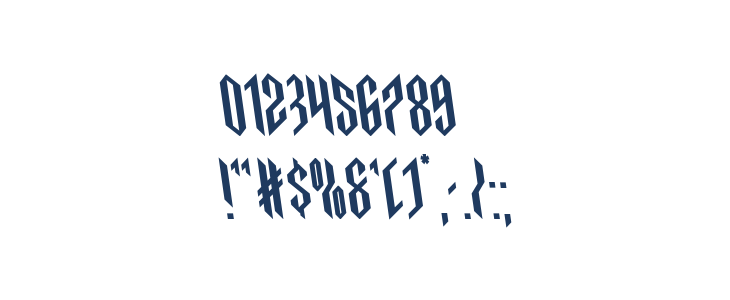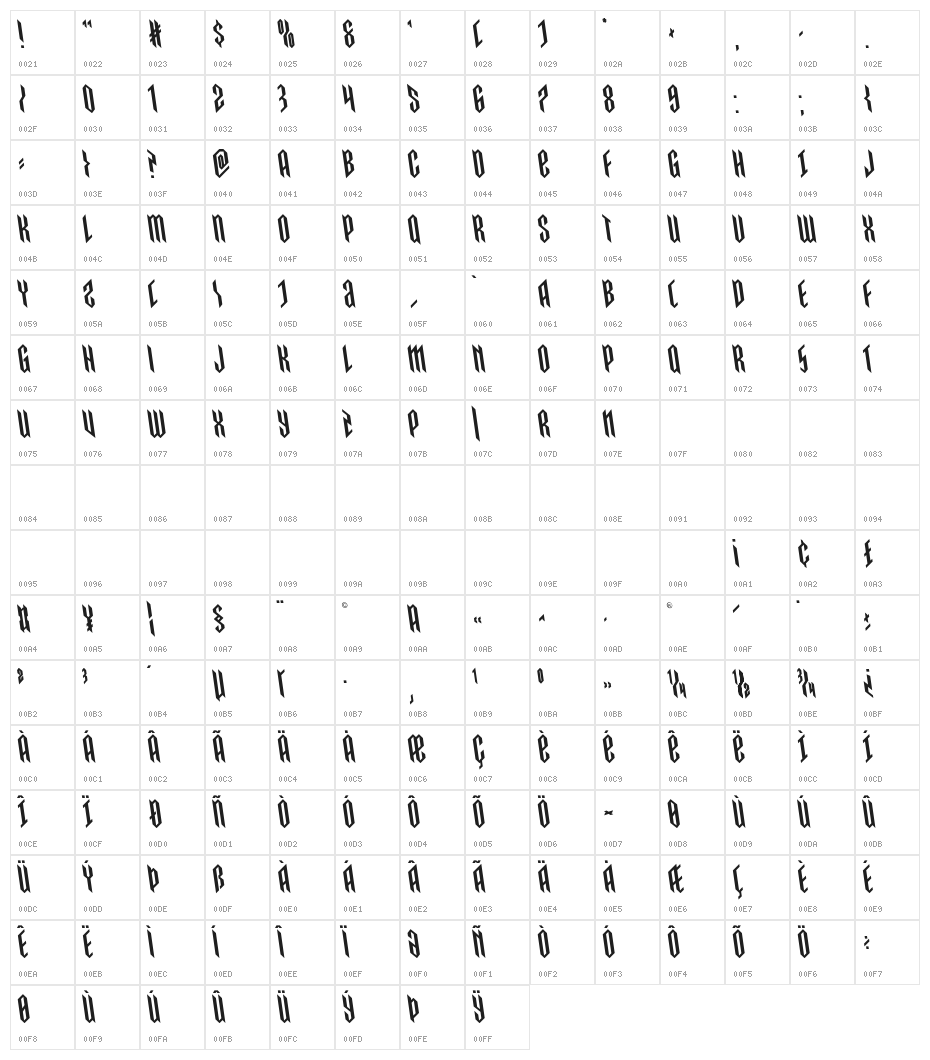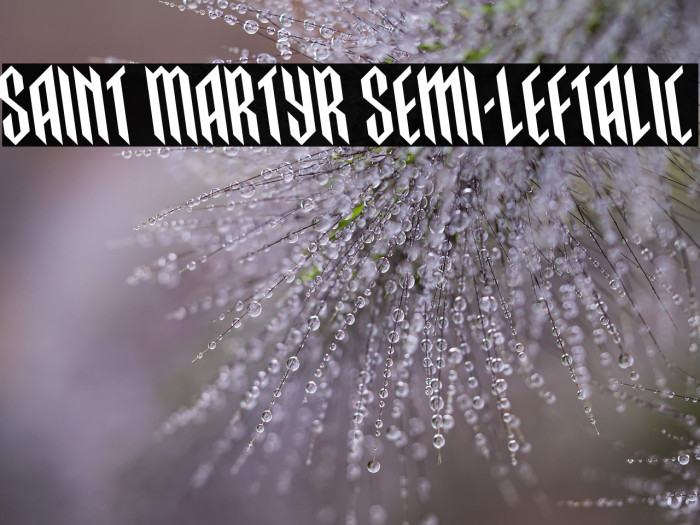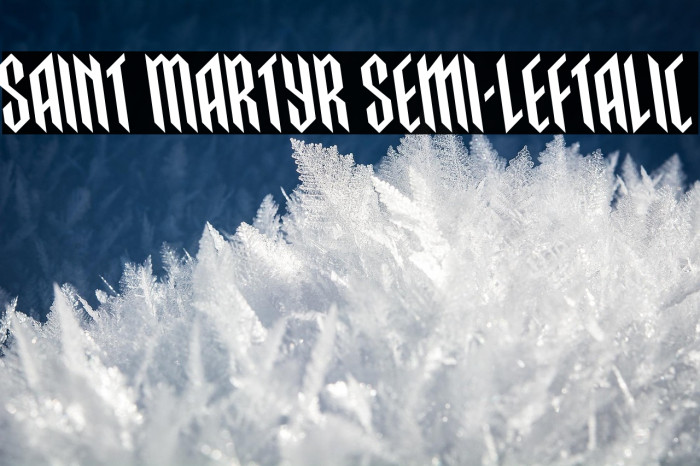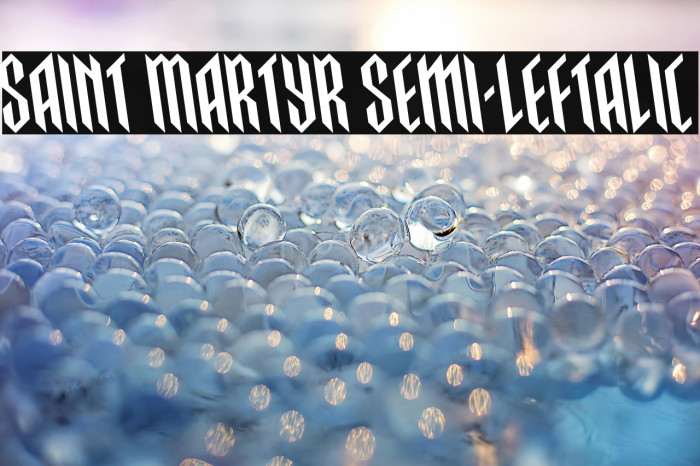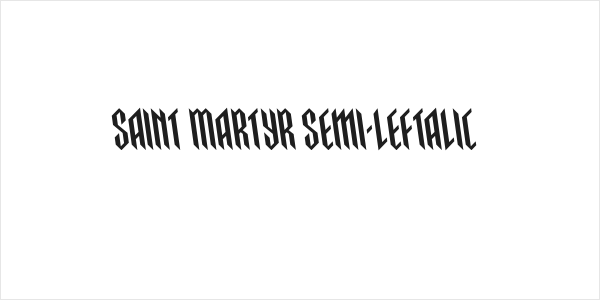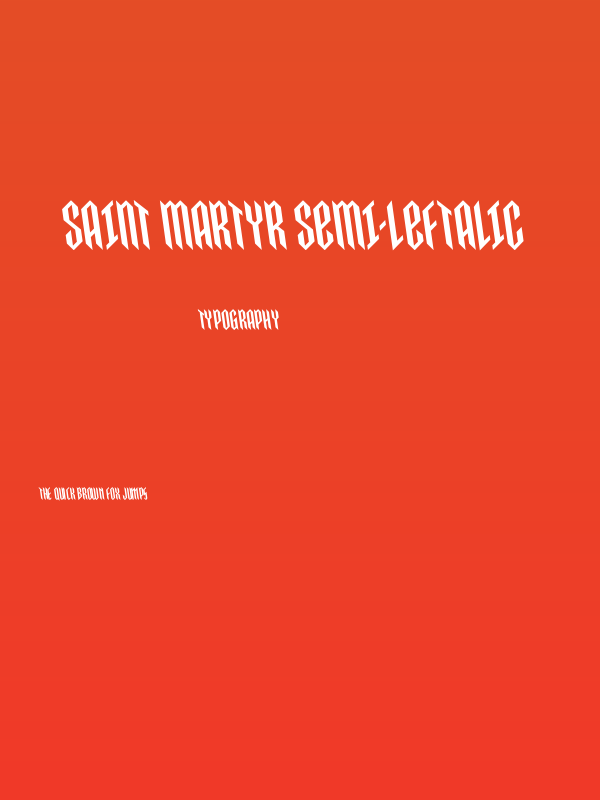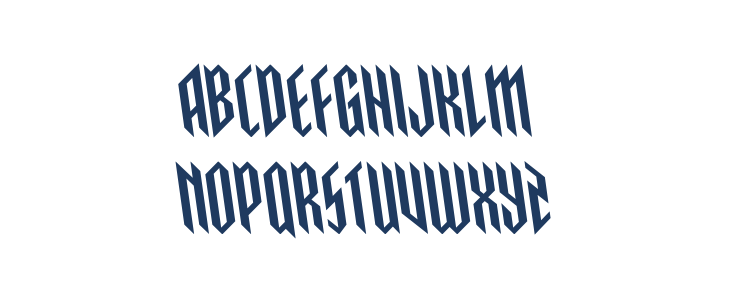
Saint Martyr Semi-Leftalic Font
Saint Martyr Semi-Leftalic Description
This font features a bold, angular design with a distinct leftward slant, giving it a dynamic and edgy appearance. The characters are sharply defined with a high contrast between thick and thin strokes, creating a striking visual impact. The uppercase and lowercase letters maintain a consistent style, with the uppercase being particularly prominent and commanding. The numbers and special characters follow the same angular and bold aesthetic, ensuring uniformity across the typeface. This font's unique style makes it stand out, suitable for projects that require a strong visual presence.
| Overall Style | Modern, Edgy |
| Proposed Projects | Ideal for branding, posters, album covers, and any design needing a bold, edgy look. |